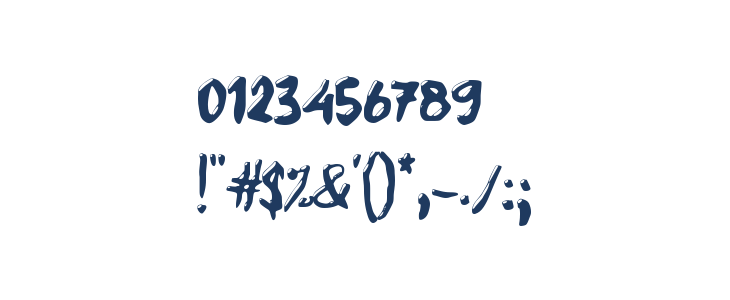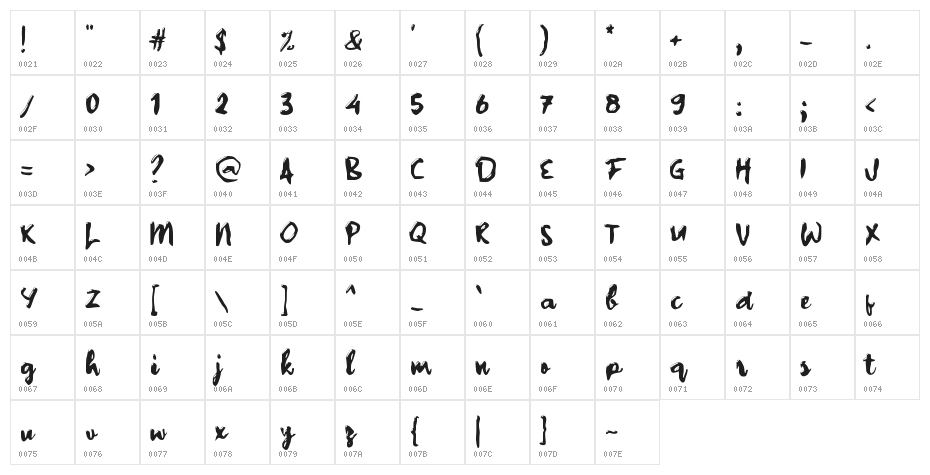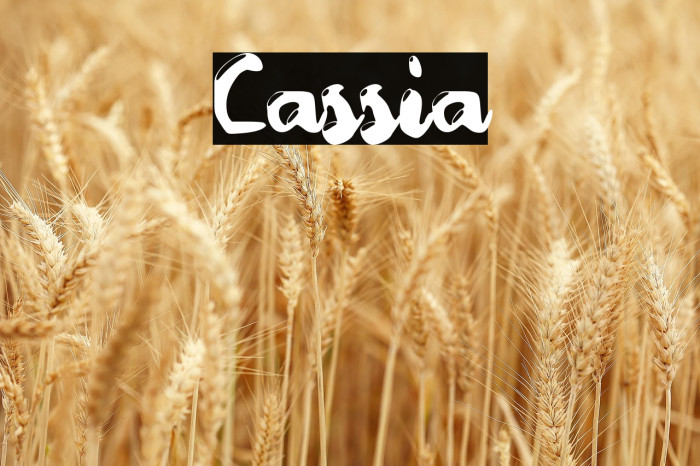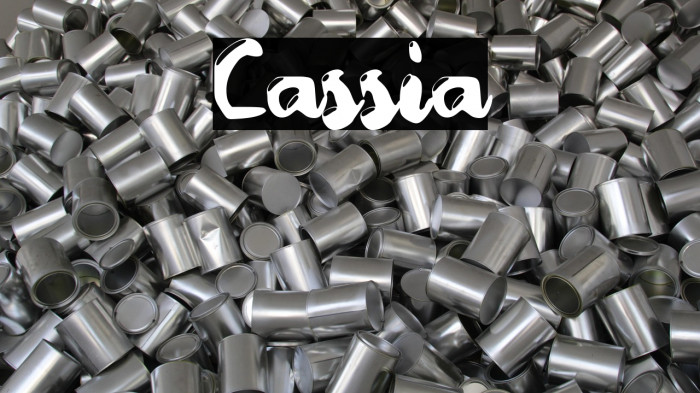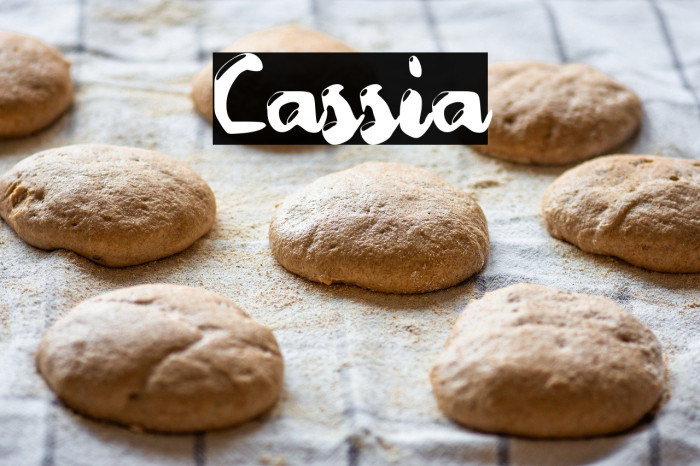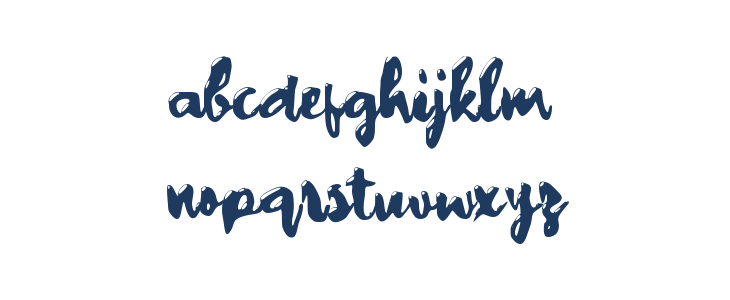
Cassia Font
Cassia Description
This font features a bold and expressive handwritten style, characterized by its fluid and dynamic strokes. The letters have a playful and artistic flair, with varying thickness that adds a sense of movement and energy. The uppercase characters are bold and prominent, while the lowercase letters maintain a consistent flow, enhancing readability. Numbers and special characters are designed with the same lively approach, making them stand out. The overall design is both modern and artistic, suitable for creative projects that require a personal touch.
| Overall Style | Modern, Artistic |
| Use Case | Logos, Headlines, Posters |
| Proposed Projects | Ideal for creative projects such as greeting cards, invitations, posters, and branding materials that require a personal and artistic touch. |